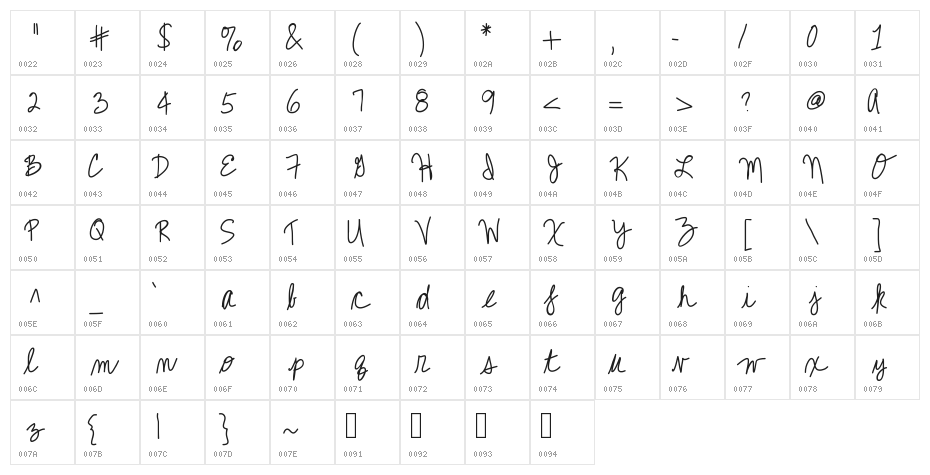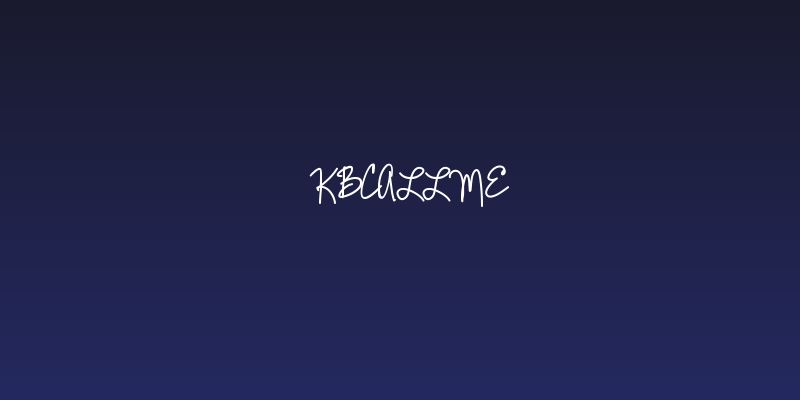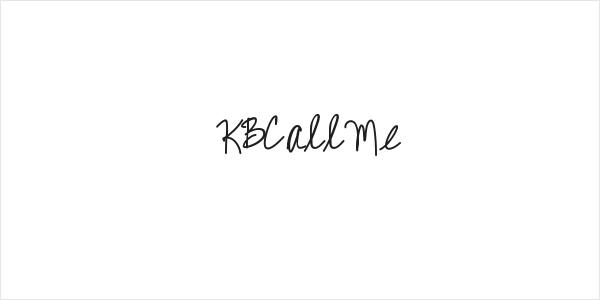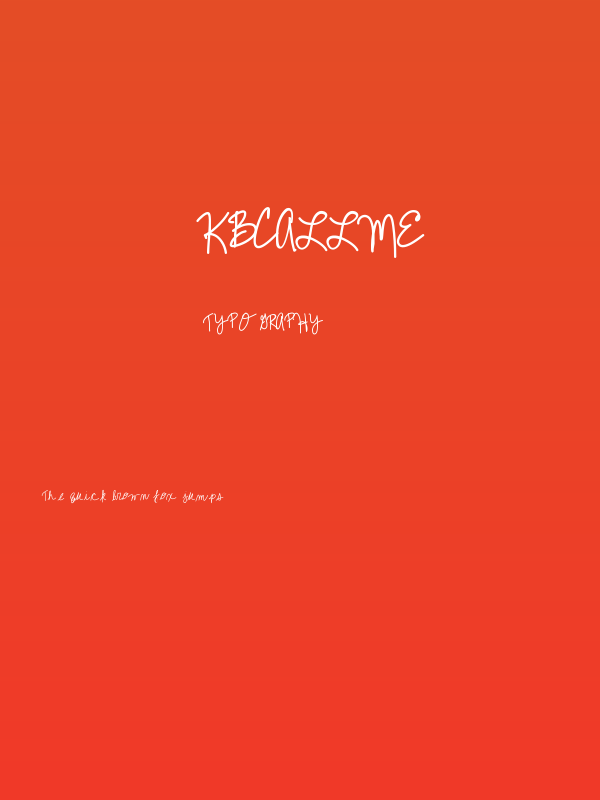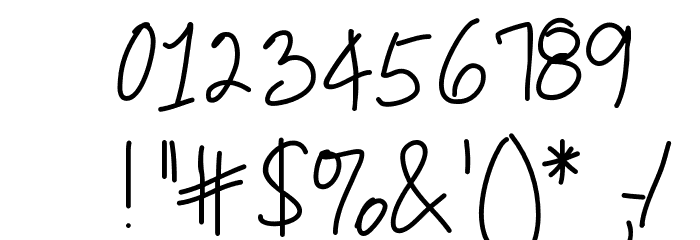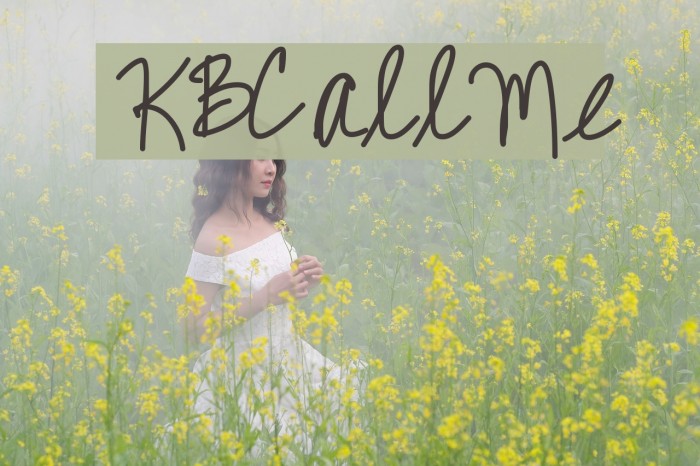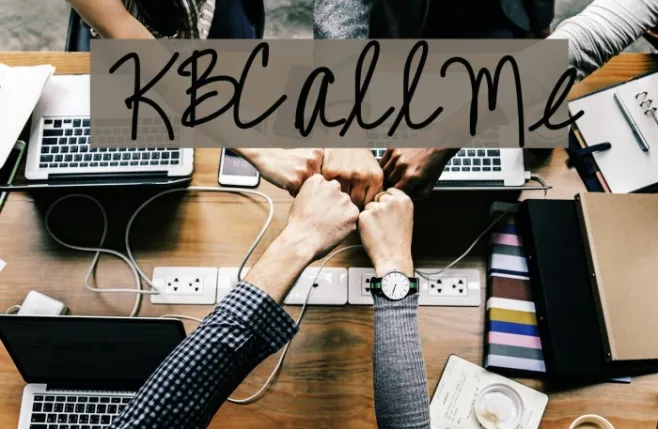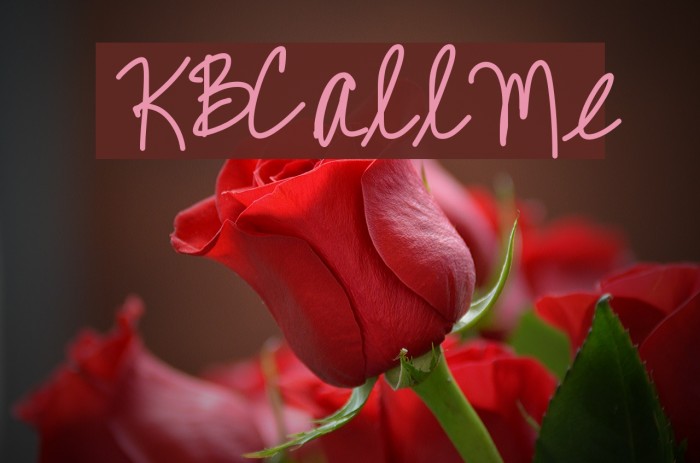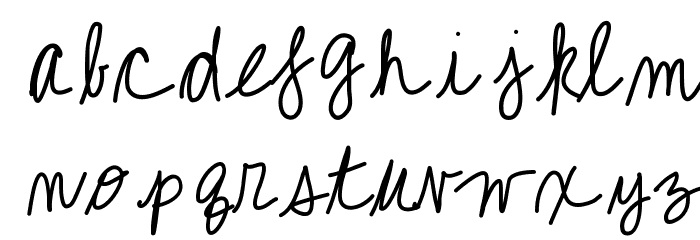
KBCallMe Font
KBCallMe Description
This font exudes a casual and playful handwritten style, characterized by its fluid and dynamic strokes. The uppercase letters are bold and slightly slanted, giving a sense of movement and spontaneity. The lowercase letters maintain a consistent flow, with loops and curves that enhance its informal appearance. Numbers are clear and legible, maintaining the playful aesthetic. Special characters are integrated seamlessly, adding to the font's versatility. Overall, this font is perfect for projects that require a personal touch, such as invitations, greeting cards, or creative branding.
| Use Case | Headlines, Logos, Personal projects |
| Proposed Projects | Ideal for invitations, greeting cards, creative branding, and personal projects. |